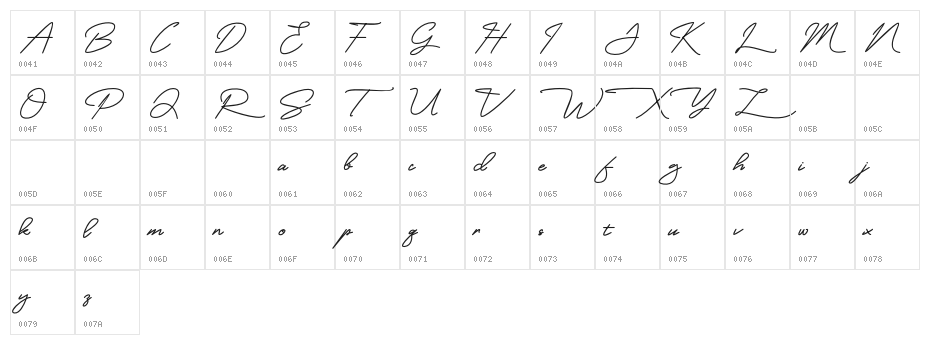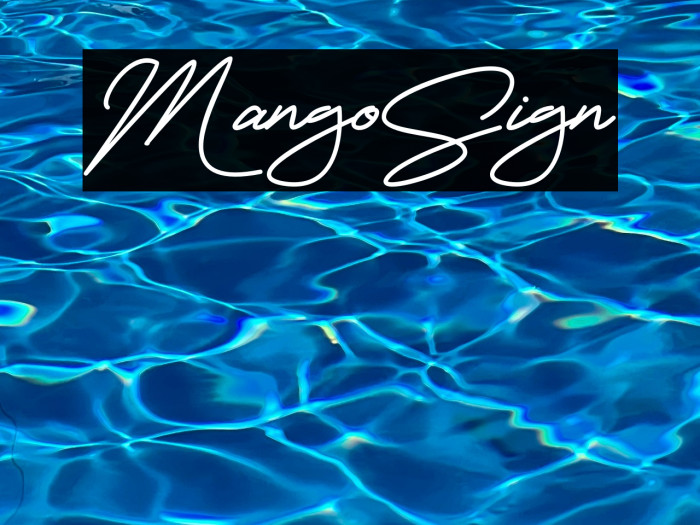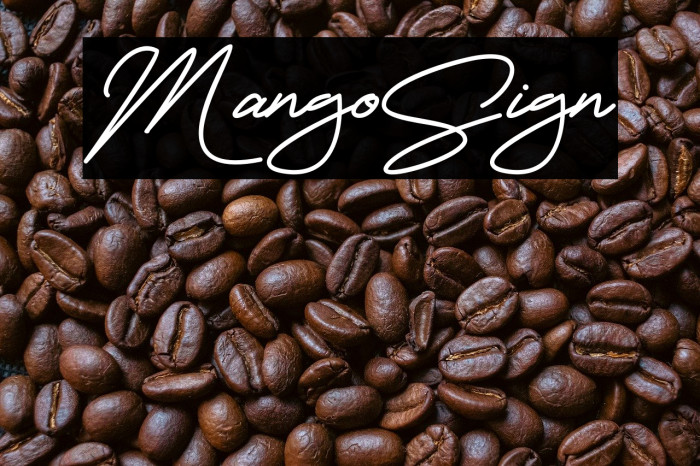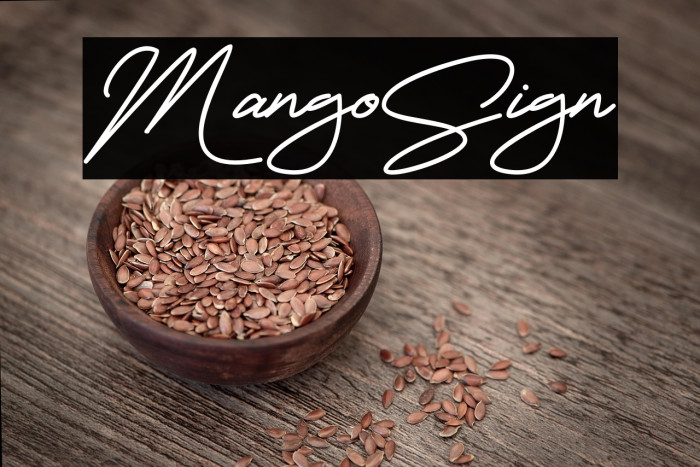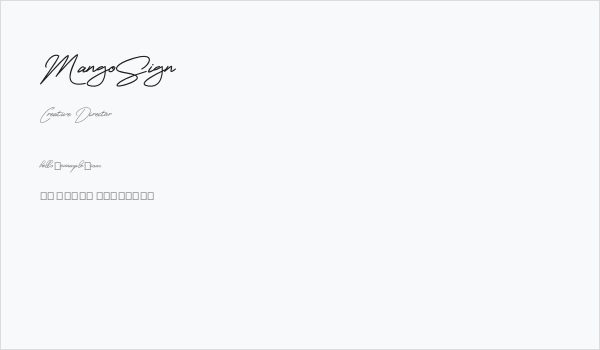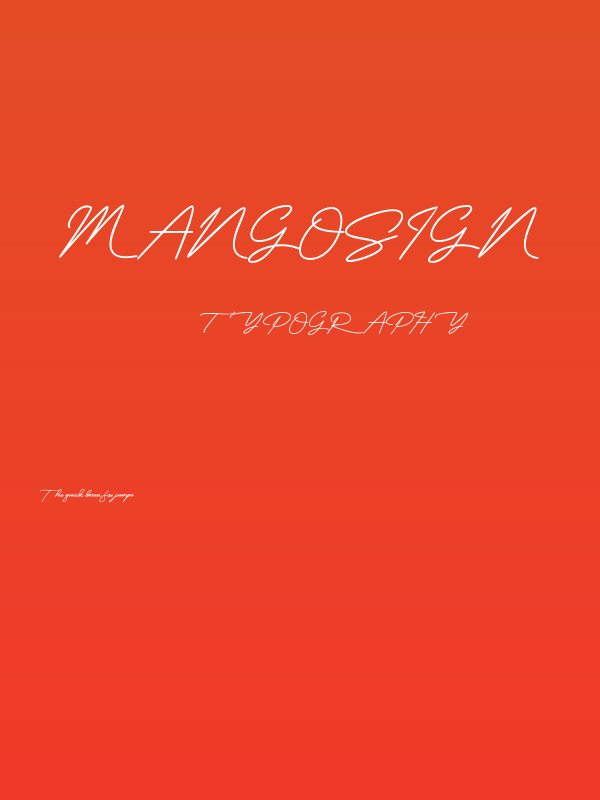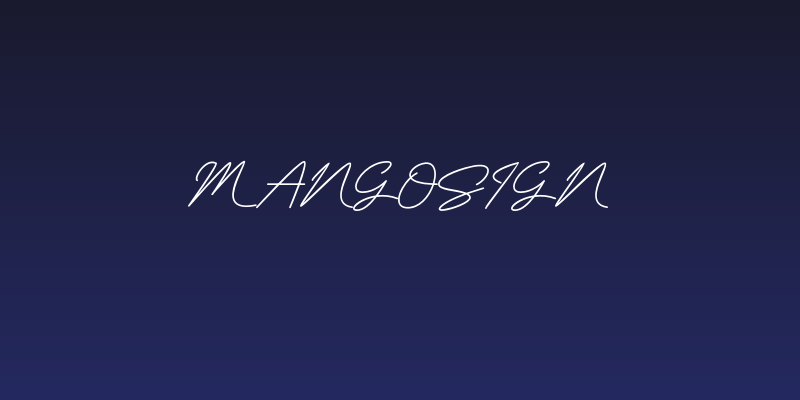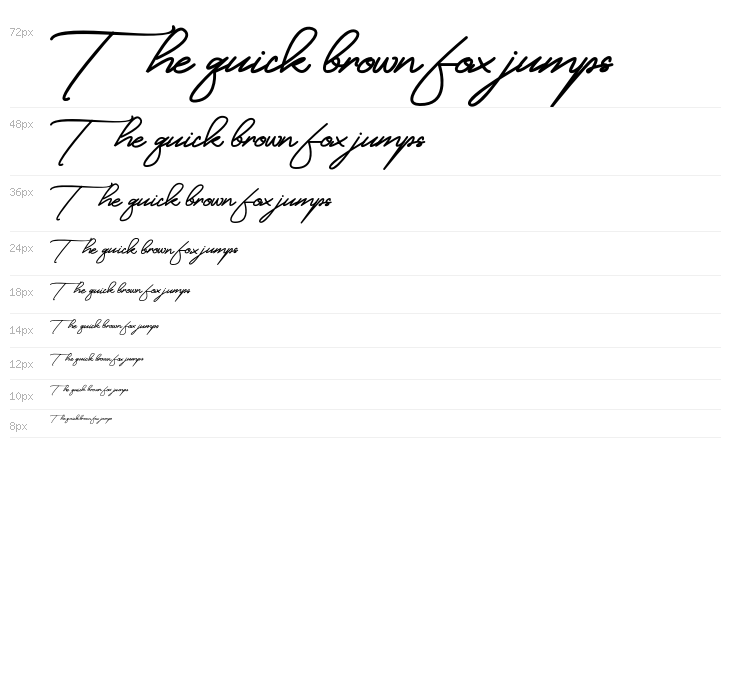
MangoSign Font
MangoSign Description
This font exudes elegance and fluidity, characterized by its cursive script style. The uppercase letters are gracefully elongated with smooth, flowing lines that connect seamlessly, creating a sense of continuity. The lowercase letters are equally fluid, with a slight slant that enhances the handwritten feel. The strokes are consistent in thickness, providing a balanced and harmonious appearance. The overall design is sophisticated, making it suitable for projects that require a personal touch. The absence of special characters suggests a focus on simplicity and elegance.
| Overall Style | Elegant |
| Use Case | Logos, Invitations, Personal Branding |
| Proposed Projects | Ideal for wedding invitations, personal branding, greeting cards, and elegant logo designs. |